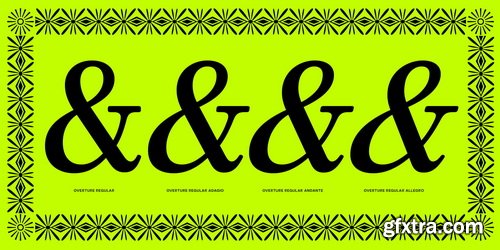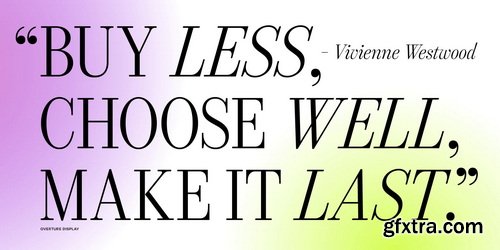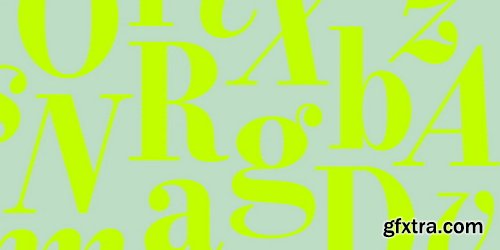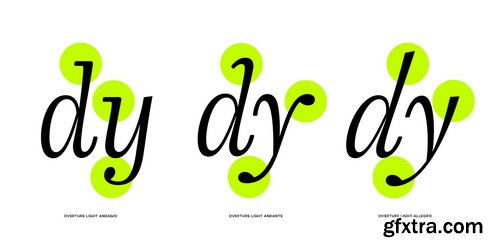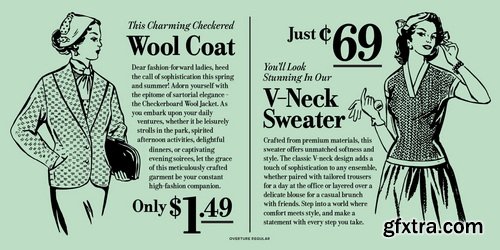
- As the new typeface evolved, one thing continued to stick out to me: Bodoni’s flexibility with the various italics drawn. So many variations, so many angles, so many use cases. For me, I struggled to settle on just one and ultimately took inspiration from 3 different italic variations at 8, 12, and 16 degrees. Each had its own speed to them. It was that connotation I set for the speed of the italics that ultimately influenced the name of the typeface, Overture. Each weight and optical size would be accompanied with three italics, at three speeds: Adagio, Andante, and Allegro. An homage of sorts to my love of classical music. As a unique bit of trivia, I almost exclusively listened to pieces by Debussy while working on this typeface—a fitting accompaniment, in my opinion.